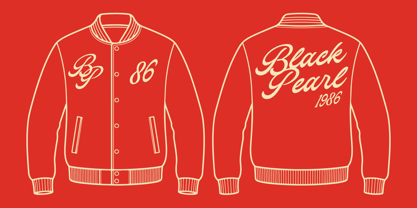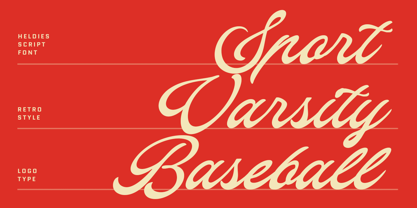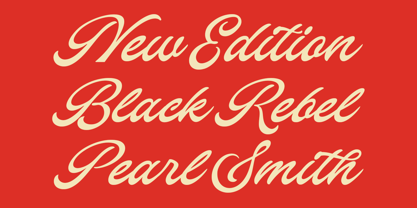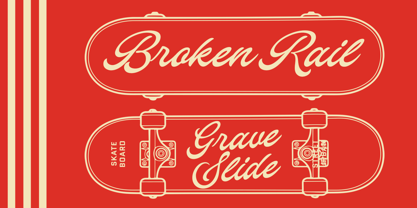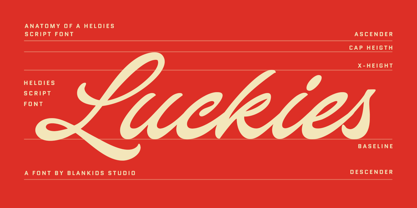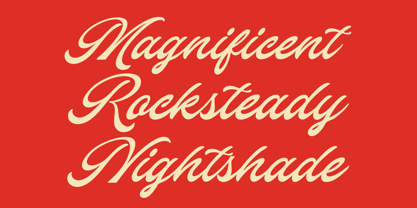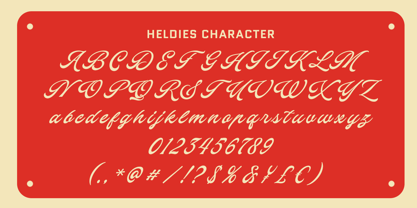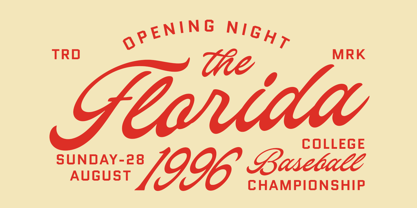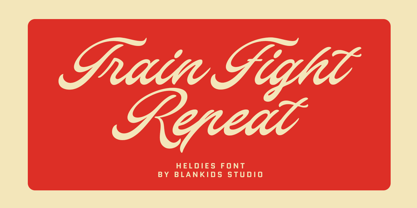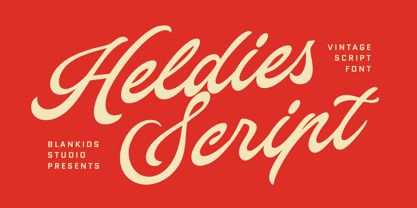
Heldies
by Blankids
The Heldies Font Family was designed by Bangkit Tri Setiadi and published by Blankids. Heldies contains 1 styles. More about this family
Heldies Script Font is a bold and elegant vintage script typeface inspired by classic hand-lettering and timeless signage. Featuring smooth curves, strong strokes, and a natural handwritten flow, Heldies delivers a warm yet confident personality that works perfectly for branding, logos, packaging, apparel, posters, and social media designs. Designed with readability and style in mind, this font combines retro charm with modern usability. Its flowing letterforms and balanced spacing make it ideal for both short headlines and expressive display text. Heldies Script Font shines especially in projects that aim to evoke nostalgia, authenticity, and craftsmanship. Perfect for vintage branding, fashion labels, coffee shops, barbershops, signage, wedding designs, and creative merchandise, Heldies adds character and soul to any visual identity. Whether you’re building a bold logo or a stylish headline, Heldies Script Font brings timeless appeal with a handcrafted feel.
Designers: Bangkit Tri Setiadi
Foundry: Blankids